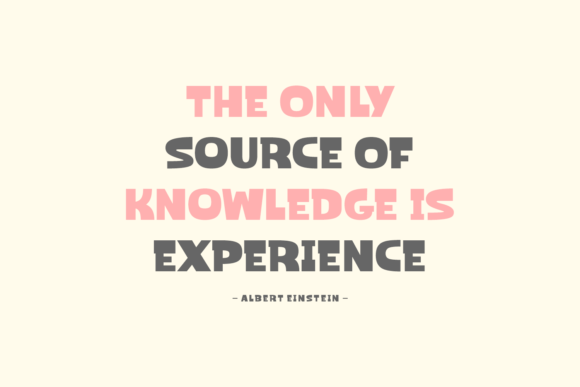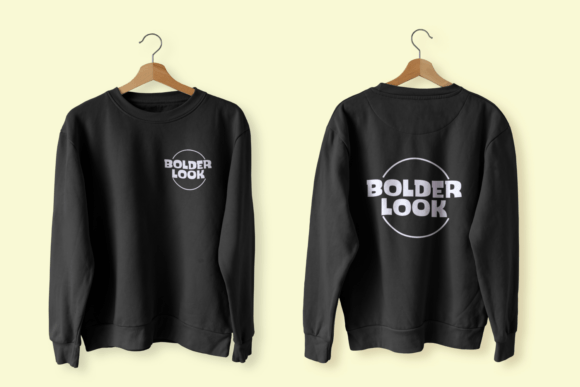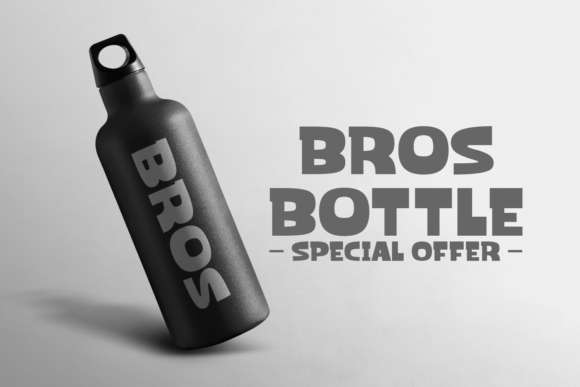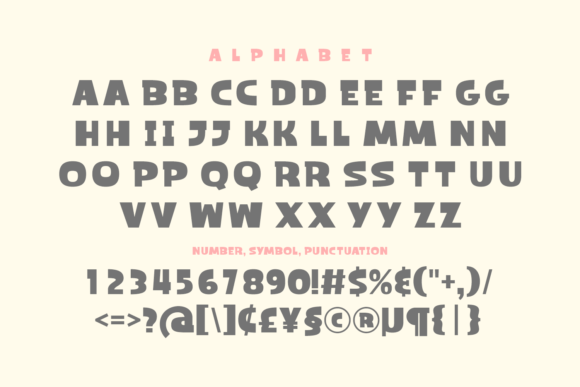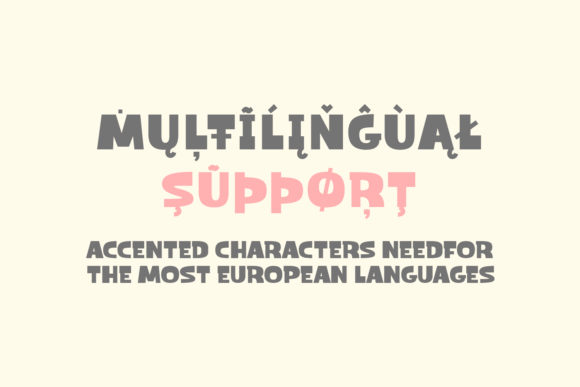
Bolder Look Font: Elevate Your Designs with a Bold and Charming Display Font
In the world of design, fonts play a crucial role in conveying the tone and personality of a project. Whether you’re a seasoned designer or a crafty DIY enthusiast, finding the right font can make all the difference. If you’re looking for a bold and charming display font to add character and personality to your designs, look no further than Bolder Look Font. In this article, we’ll dive into the features and benefits of Bolder Look Font, and explore the many ways you can use it to elevate your designs.
What is Bolder Look Font?
Bolder Look Font is a bold and charming display font that’s perfect for adding a touch of personality to your designs. With its unique and eye-catching letterforms, Bolder Look Font is sure to make your projects stand out. Whether you’re working on a social media graphic, poster, invitation, or name card, Bolder Look Font is the perfect choice.
Key Features of Bolder Look Font
- Bold and Charming: Bolder Look Font is a bold and charming display font that’s sure to grab attention.
- Unique Letterforms: Each letterform in Bolder Look Font is uniquely designed to add a touch of personality to your designs.
- Versatile: Bolder Look Font can be used on a variety of projects, from social media graphics to posters, invitations, and more.
- Easy to Read: Despite its bold and playful design, Bolder Look Font is easy to read, making it perfect for headlines and titles.
Ways to Use Bolder Look Font
Bolder Look Font is a versatile font that can be used on a wide range of projects. Here are some ideas to get you started:
- Social Media Graphics: Use Bolder Look Font to add a bold and charming touch to your social media graphics, including Facebook posts, Instagram stories, and Twitter headers.
- Posters: Create eye-catching posters for events, promotions, or announcements using Bolder Look Font.
- Invitations: Add a touch of personality to your invitations, including birthday party invites, wedding invites, and baby shower invitations.
- Name Cards: Use Bolder Look Font to create custom name cards for events, conferences, or meetings.
- Kids Related Projects: Bolder Look Font is perfect for kids-related projects, including children’s book titles, nursery rhymes, and kids’ party invitations.
Tips for Using Bolder Look Font
Here are some tips for getting the most out of Bolder Look Font:
- Use it as a Headline Font: Bolder Look Font is perfect for headlines and titles, so use it to grab attention and draw the reader in.
- Pair it with Other Fonts: Experiment with pairing Bolder Look Font with other fonts to create a unique and interesting design.
- Adjust the Size: Don’t be afraid to adjust the size of Bolder Look Font to create visual interest and hierarchy in your design.
- Use it in Combination with Images: Use Bolder Look Font in combination with images to create a visually appealing design.
Bolder Look Font is a bold and charming display font that’s perfect for adding character and personality to your designs. With its unique letterforms, versatility, and ease of use, Bolder Look Font is a must-have for designers and crafters. Whether you’re working on a social media graphic, poster, invitation, or name card, Bolder Look Font is the perfect choice. So why wait? Download Bolder Look Font today and start elevating your designs!